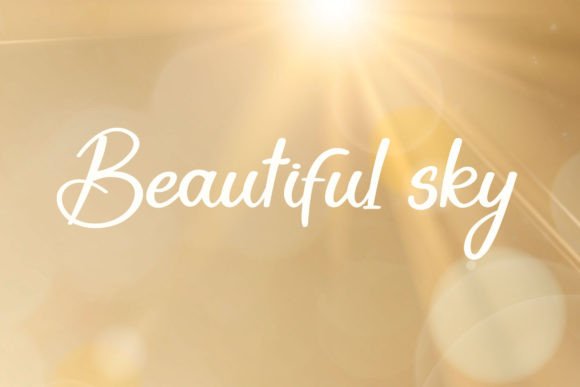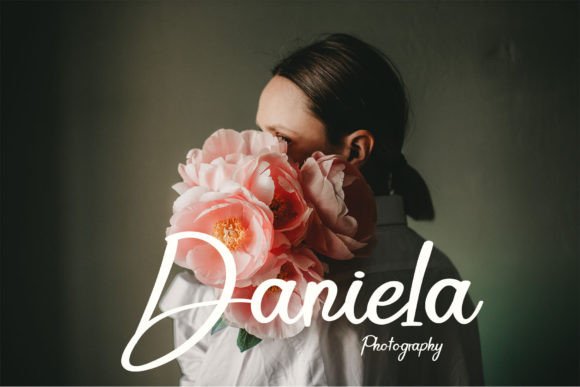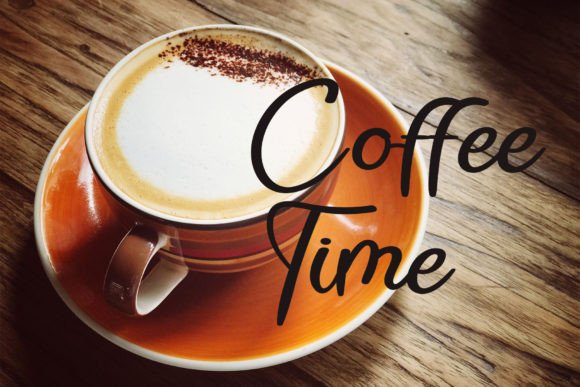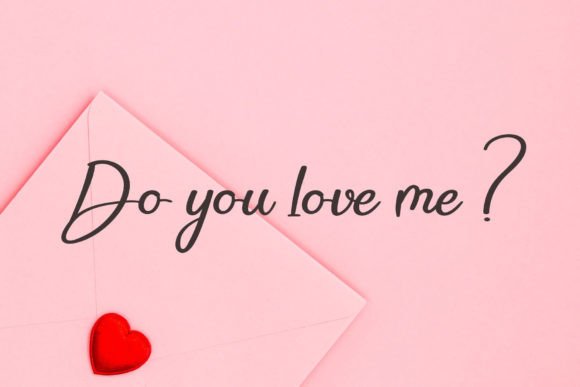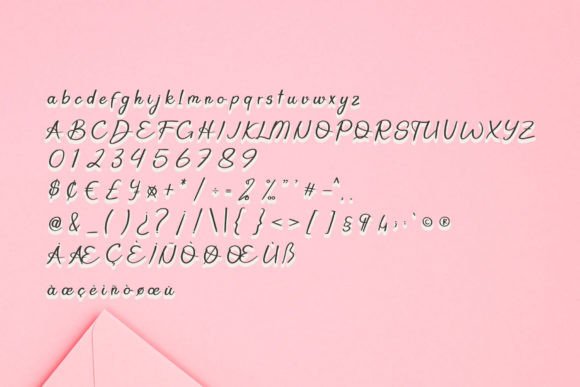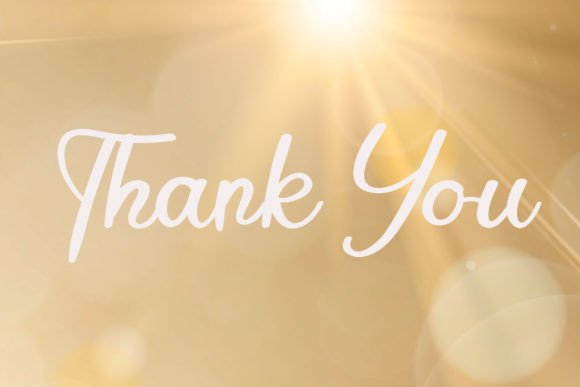
Introducing Anything Font: The Sweet and Friendly Handwritten Font for Your Design Needs
Are you looking for a font that can add a personal touch to your designs? Look no further than Anything Font, a sweet and friendly handwritten font that’s perfect for creating beautiful wedding invitations, cards, and more. In this article, we’ll dive into the features and benefits of Anything Font, and explore how you can use it to elevate your designs.
What is Anything Font?
Anything Font is a handwritten font that’s designed to be fun and relaxed. Its sweet and friendly style makes it ideal for designs that require a personal touch. Whether you’re creating wedding invitations, birthday cards, or social media graphics, Anything Font is the perfect choice.
Key Features of Anything Font
• Handwritten style: Anything Font has a unique handwritten style that’s perfect for adding a personal touch to your designs.
• Fun and relaxed: This font is designed to be fun and relaxed, making it perfect for designs that require a friendly tone.
• Versatile: Anything Font can be used for a wide range of designs, from wedding invitations to social media graphics.
• Easy to read: Despite its handwritten style, Anything Font is easy to read and understand, making it perfect for designs that require a clear message.
Benefits of Using Anything Font
So why should you choose Anything Font for your designs? Here are just a few benefits of using this beautiful font:
• Adds a personal touch: Anything Font’s handwritten style adds a personal touch to your designs, making them more relatable and engaging.
• Creates a friendly tone: This font’s fun and relaxed style creates a friendly tone that’s perfect for designs that require a approachable vibe.
• Perfect for wedding designs: Anything Font is ideal for wedding invitations, save-the-dates, and other wedding-related designs.
• Great for crafters and designers: Whether you’re a professional designer or a crafter, Anything Font is a great addition to your font collection.
How to Use Anything Font in Your Designs
• Pair it with other fonts: Anything Font pairs well with other fonts, such as serif or sans-serif fonts. Experiment with different combinations to find the perfect look for your design.
• Use it for headings and body text: This font is versatile enough to be used for both headings and body text. Use it to create a cohesive look for your design.
• Add embellishments: Anything Font looks great with embellishments, such as flowers or leaves. Add a personal touch to your design with these extra elements.
• Experiment with different colors: Anything Font looks great in a variety of colors. Experiment with different hues to find the perfect look for your design.
• Use it for digital and print designs: This font is versatile enough to be used for both digital and print designs. Use it to create everything from social media graphics to business cards.
• Combine it with images: Anything Font looks great when combined with images. Use it to create a beautiful design that incorporates both text and images.
Font Name Anything Font
Author pinkmeca
Anything Font is a beautiful handwritten font that’s perfect for designers and crafters who want to add a personal touch to their designs. With its sweet and friendly style, this font is ideal for wedding invitations, cards, and more. Whether you’re a professional designer or a crafter, Anything Font is a great addition to your font collection.